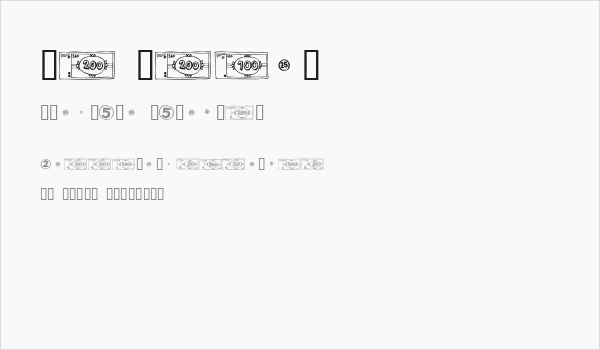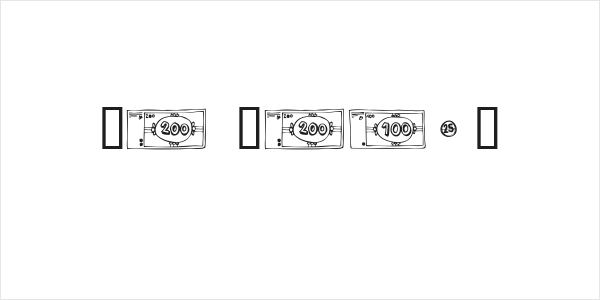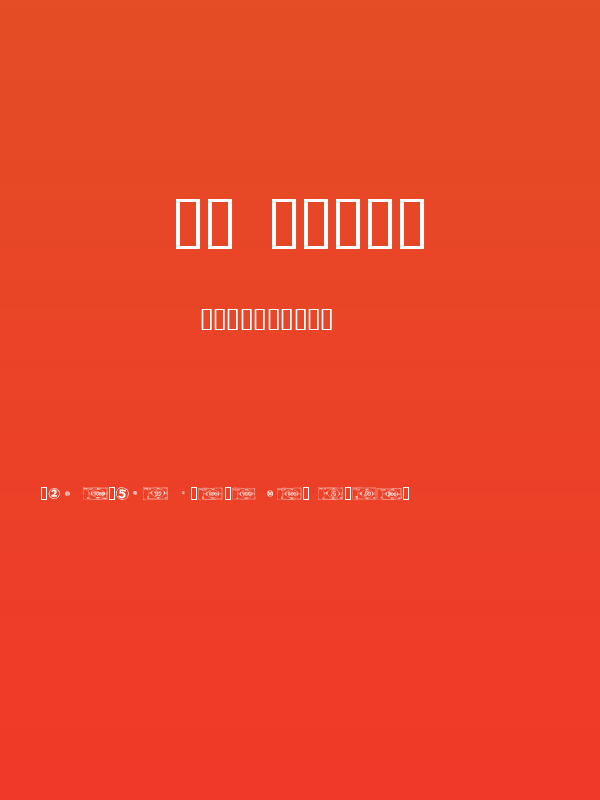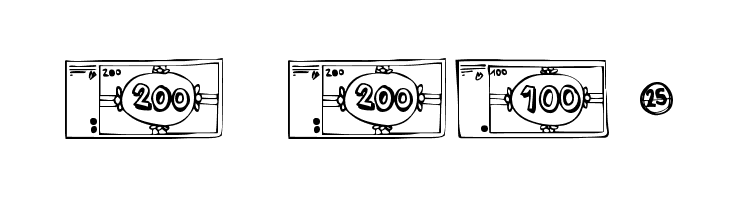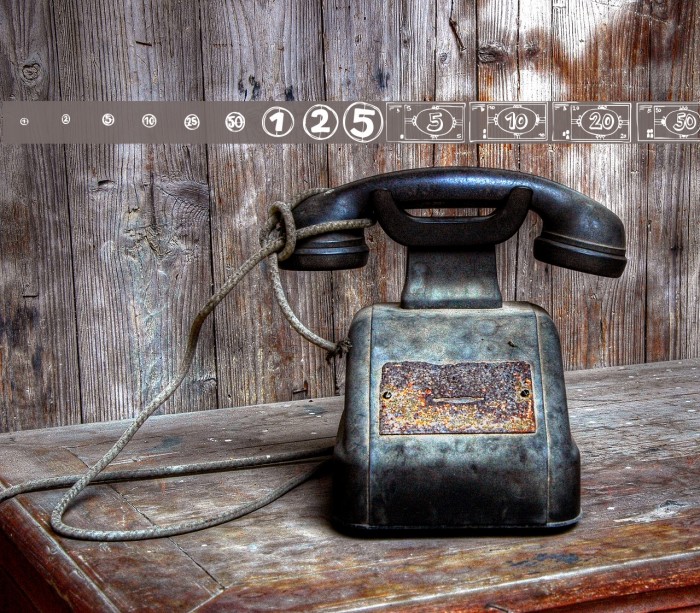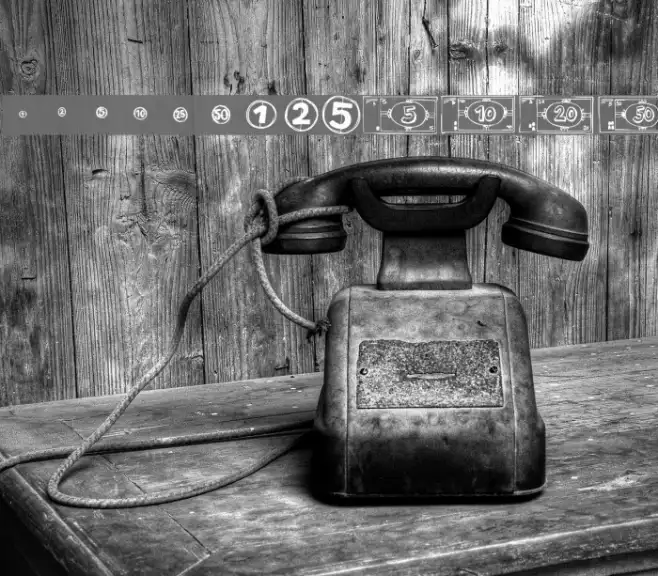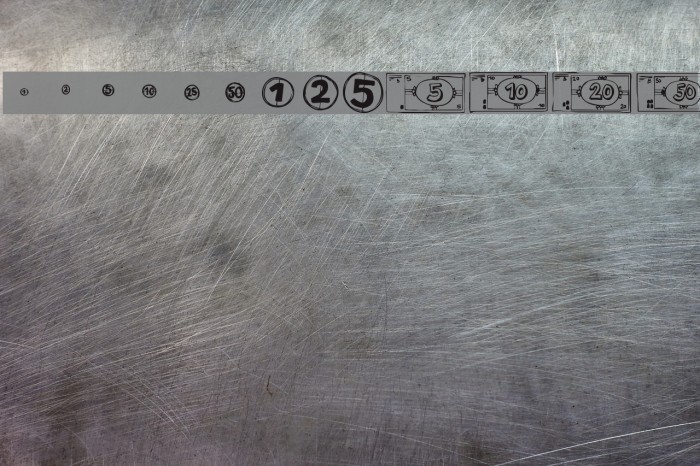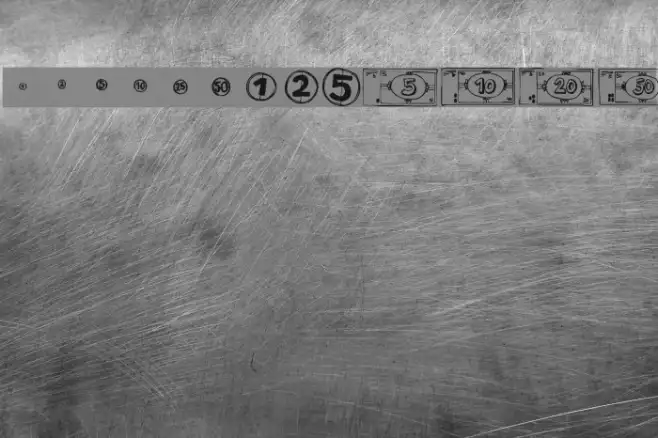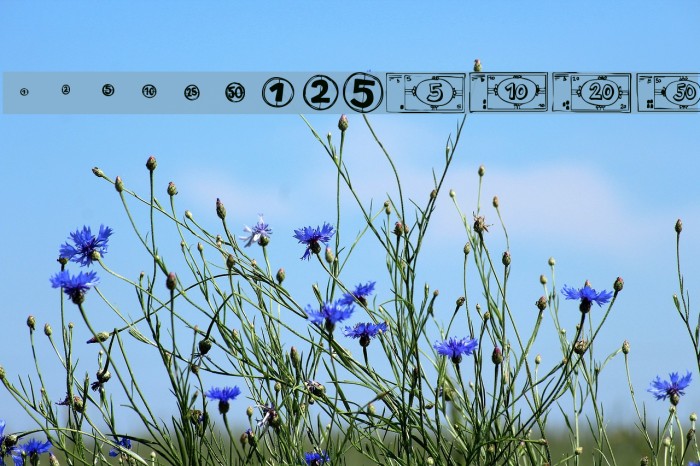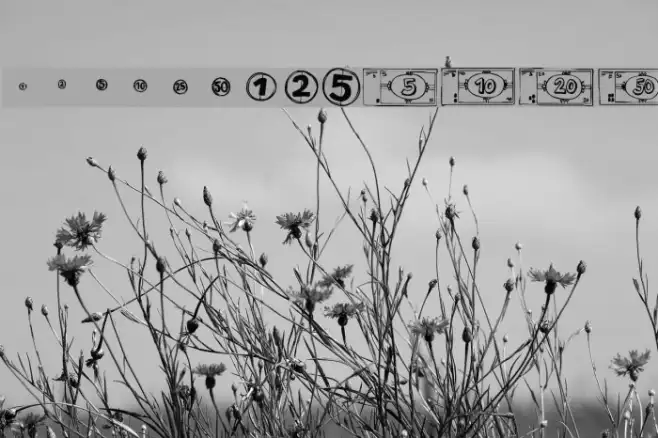
Mo Money Font
Mo Money Description
This is not a valid font. The image appears to depict a series of currency-like designs rather than a traditional font set. Each element resembles a banknote or coin, featuring numbers and decorative elements typical of currency. The design includes various denominations and symbols, but lacks the standard alphabetic and numeric characters arranged in a typical font layout.
| Use Case | Decorative elements, educational tools |
| Proposed Projects | This design could be used for educational games, play money for children, or as a decorative element in financial-themed projects. |